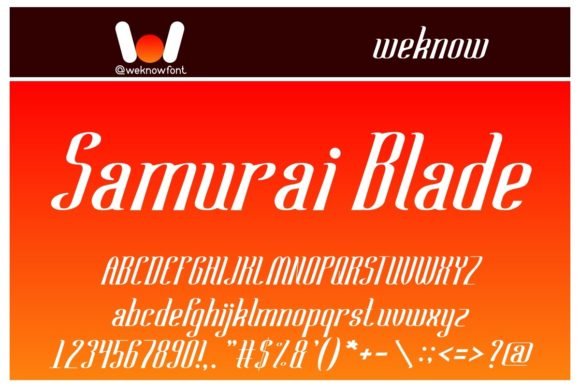
Introduction to Samurai Blade Font
Samurai Blade is a fancy and well-balanced script font.
It is suitable for logos, brand identity, apparel industry, poster, music, movie, game, magazine, book, comic, cartoon, YouTube, Instagram, website, or any of your creative design projects .
Key Features of Samurai Blade Font